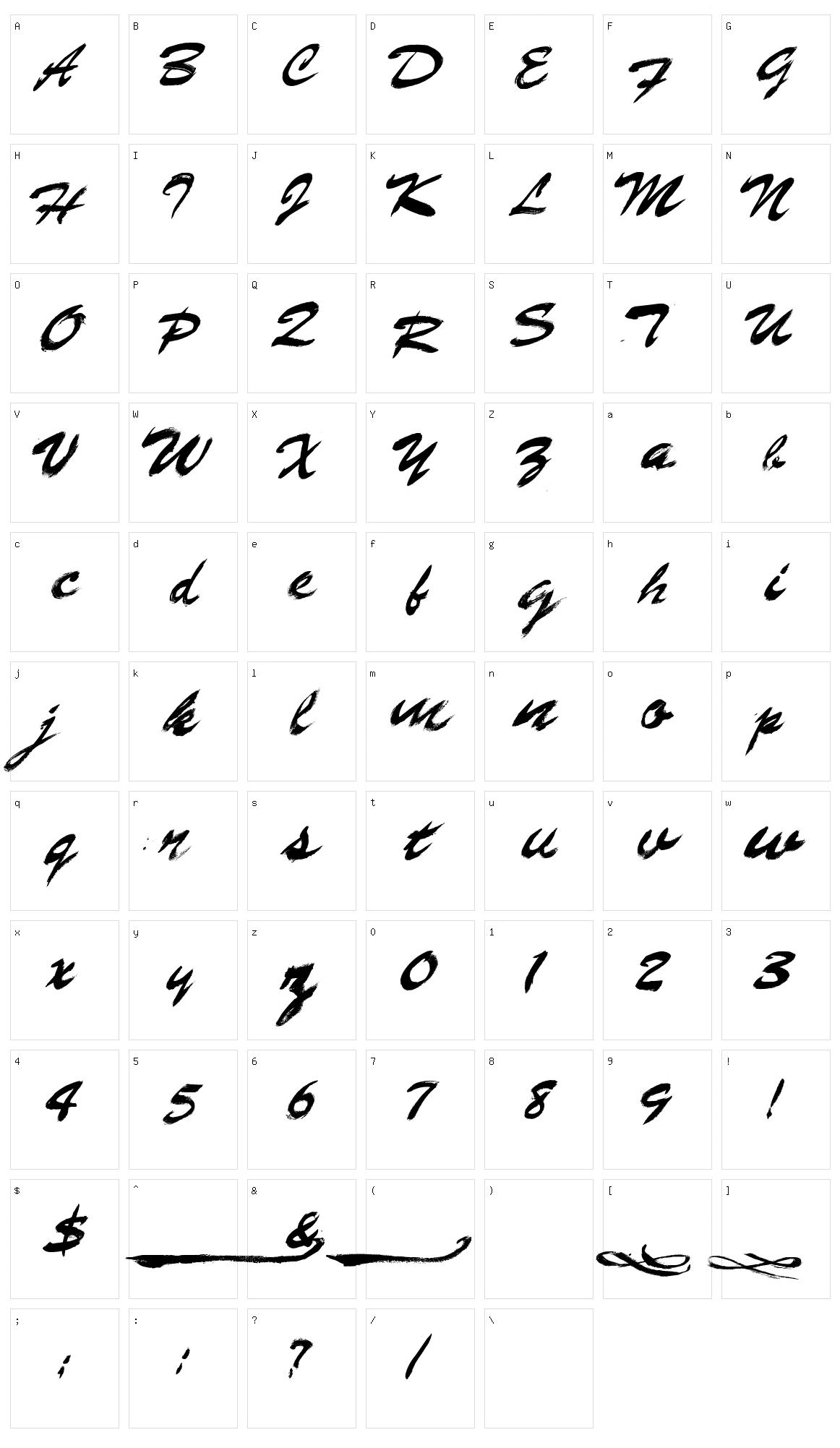
The free font Gasoline is carefully designed by Gravual, showcasing a thoughtful balance of creativity and usability and falls under the Script font style. When you download the ZIP file, it contains only 274.41 KB of font files, making it lightweight and quick to download. Please review the license details below to understand permitted usage and distribution rights. If license information is not available, we recommend using this font for personal projects only or contacting the author directly for commercial usage permissions.